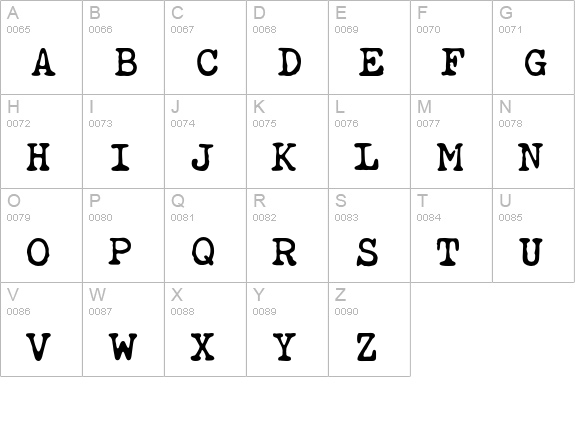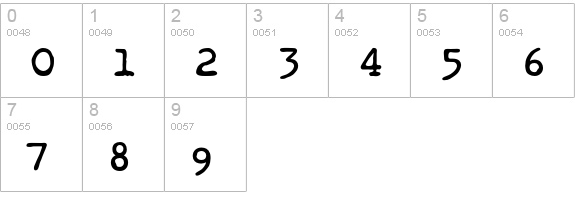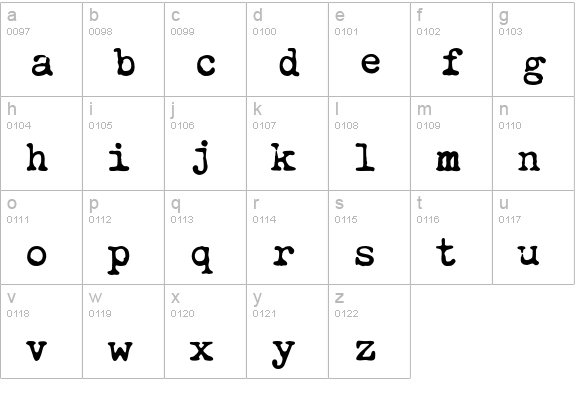
ObsoleteBold Font Details
Introducing ObsoleteBold font, a striking and attention-grabbing typeface that exudes a sense of boldness and uniqueness. With its obsolete yet timeless charm, ObsoleteBold brings a touch of nostalgia to any design project. This font is perfect for making a statement, whether it be in headlines, logos, posters, or branding materials. The best part? ObsoleteBold is completely free to download at FontsMarket.com. This means you can enhance your projects with this standout font without having to worry about any cost. Don't miss out on the opportunity to add a touch of vintage flair to your designs with ObsoleteBold font. Download it today and let your creativity shine!